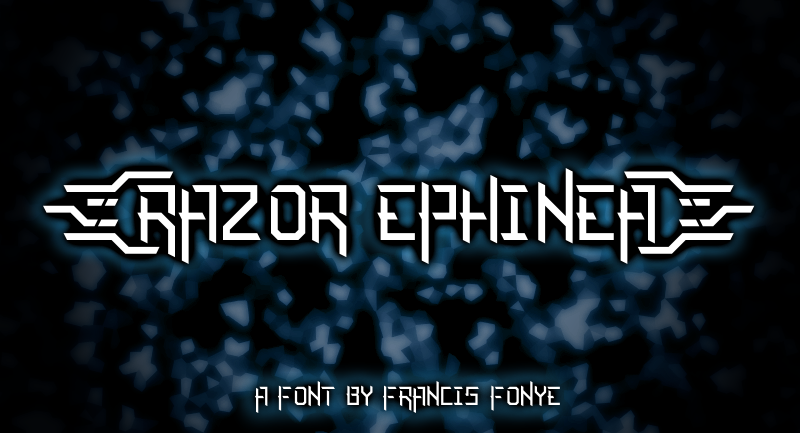
Razor Ephinea
{ Razor Ephinea Font }
Razor Ephinea Font
Write as {Razor Ephinea}, the curly braces can be used as decorative characters.
This font “Razor Ephinea” is created by Francis Fonye.
Classification: Techno / Futuristic Fonts